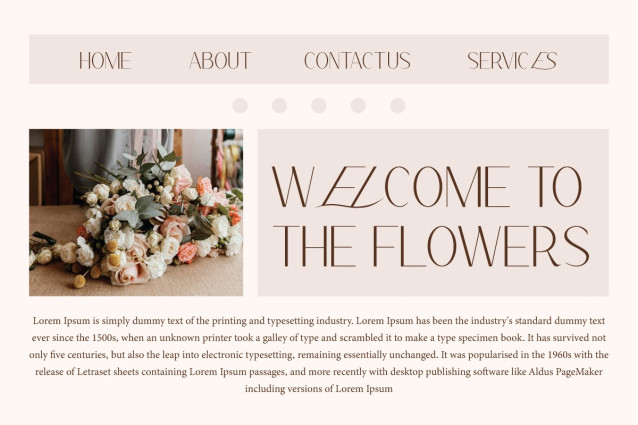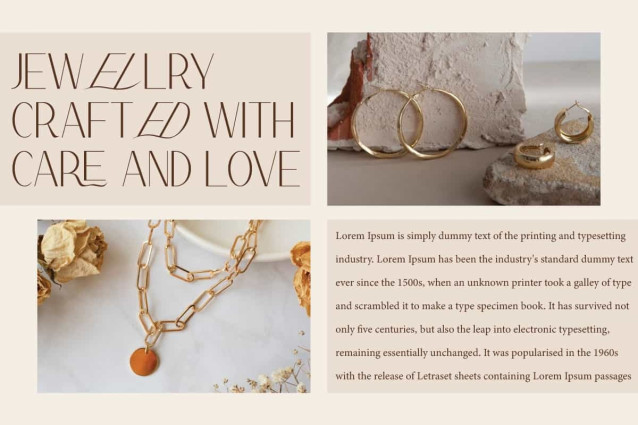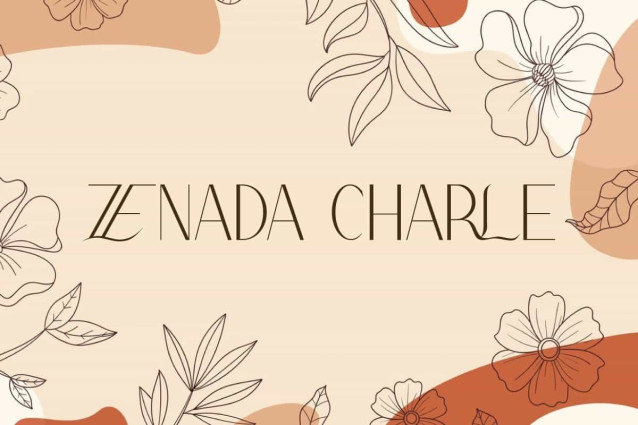
Zenada Charle Font
Zenada Charle Font is an exclusive sans serif font with an elegant style. This font has sleek lines and unique details on some letters, creating a combination of simplicity and a charming artistic touch. This font will be perfect for various projects, such as advertisement, blog, brand image, gift box, invitation, label, layout design, quotes, signboard, template design purpose, website, and many more.
Zenada Charle Font includes full set of Uppercase and Lowercase Basic Characters, Numerals, Punctuation, Symbol, and Ligature character. This font have clean appearance but still has a luxurious feel, making it a perfect choice for a variety of fields, such as accessories and jewelry, cosmetic, event or wedding organizer, fashion, florist, furniture, real estate, skincare, spa salon, etc.